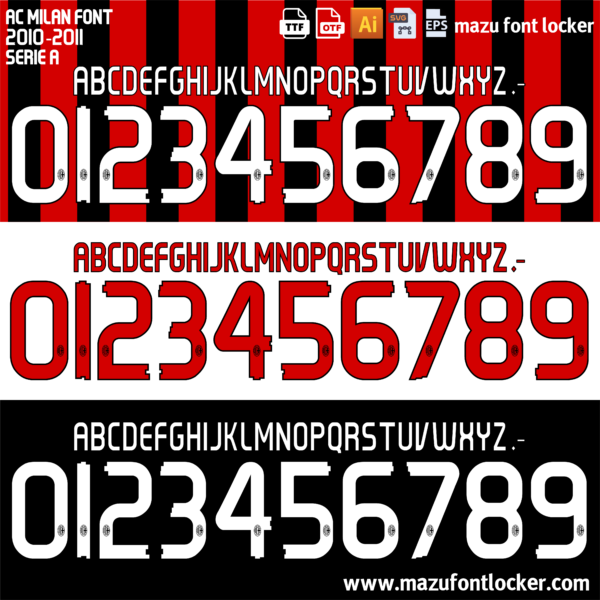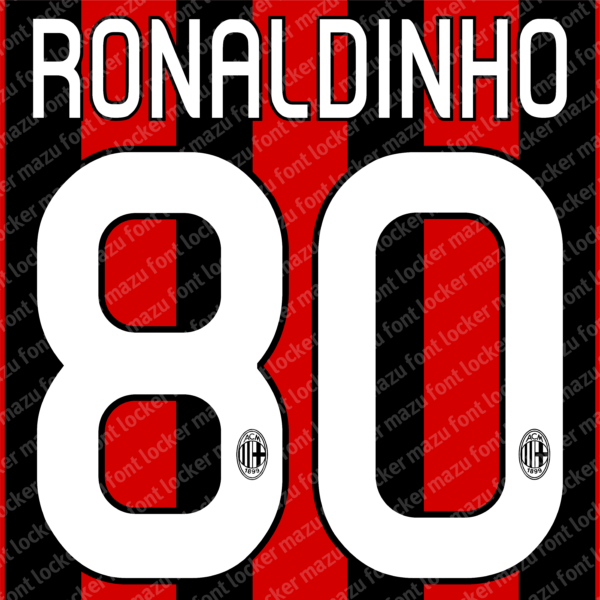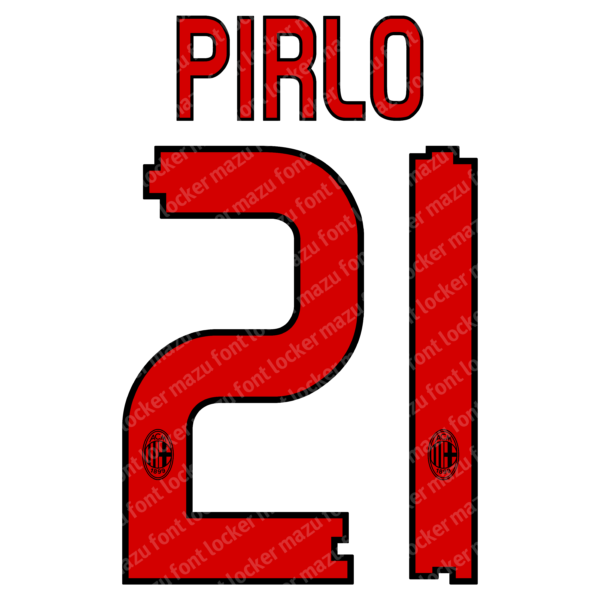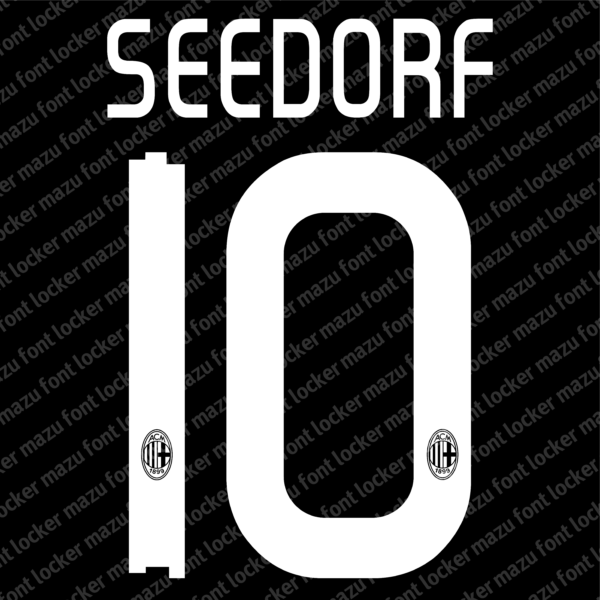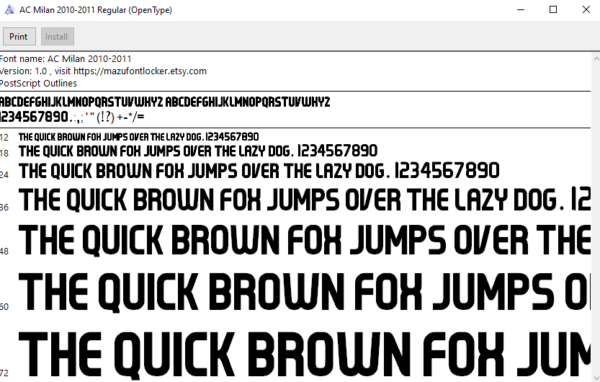
AC Milan 2010-2011 Font Vector – Stunning Rossoneri Glory Masterpiece
This premium font captures the timeless, championship-crafted, and ruthlessly elegant match lettering that embodies the AC Milan legacy — delivering authentic Milanese passion, explosive San Siro atmosphere, unwavering defensive discipline, tactical brilliance, legendary European pedigree, and the unstoppable Rossoneri roar that defined one of the club’s most dominant modern-era triumphs.
AC Milan 2010-2011 Font Vector – Legendary Rossoneri Vintage Match Typeface
The AC Milan 2010-2011 Font Vector is a premium typeface that faithfully recreates the official match lettering used by AC Milan during the iconic 2010-2011 season. This high-quality vector font kit captures the bold, clean, and instantly recognisable typography seen on the backs of Rossoneri legends during a season that showcased Milan’s dominance in Serie A under a revitalised squad.
This font stands out thanks to its sharp geometric construction and strong readability, reflecting the Serie A regulations of the time that standardised shirt typography across clubs. Every character has been carefully recreated to match the official nameset used throughout the 2010-2011 season, giving your designs an authentic professional football look.
The lettering features a bold, sans-serif structure with slightly rounded edges for improved clarity on fabric. Designed under Serie A standardisation rules, the font prioritises readability while maintaining a strong, modern football identity that still feels timeless today.
The numerals are thick, balanced, and highly legible from distance, making them ideal for broadcast visibility and jersey printing. Each number is carefully proportioned for use on both home and away kits, maintaining consistency across squad numbers and player names.
- Complete uppercase A–Z alphabet and numbers 0–9 in authentic AC Milan 2010-2011 style
The AC Milan 2010-2011 Font Vector is an independently designed typeface package inspired by the official shirt lettering used during the 2010-2011 season. It is intended for creative projects, football design work, jersey mockups, and nostalgic fan artwork.